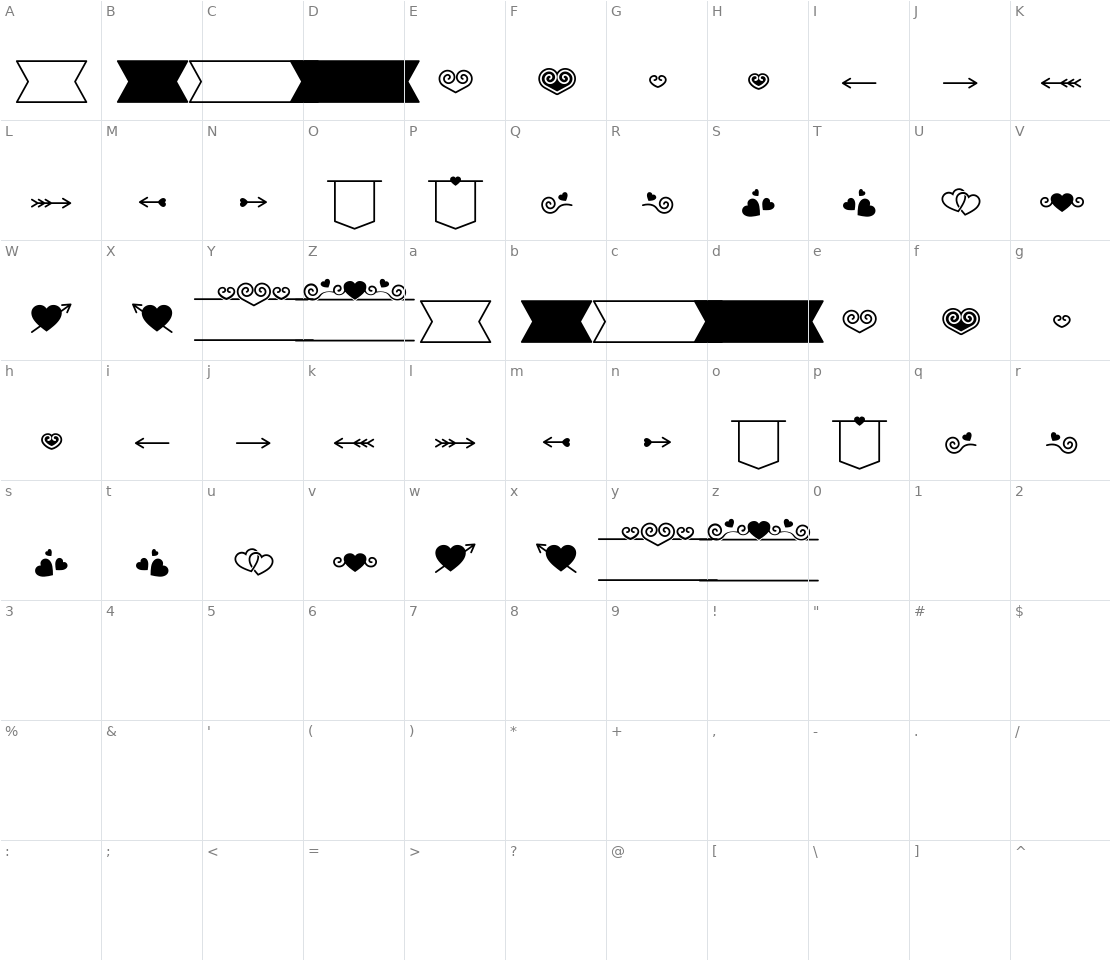
Romantine Dingbat
by Subectype
Romantine Dingbat is a set of romantic ornaments and symbols from Subectype, featuring hearts, arrows, banners, and other Valentine-themed decorative elements. It's the kind of dingbat font you reach for when putting together wedding invitations, love letters, greeting cards, or seasonal Valentine's Day designs where you need quick, ready-made romantic flourishes without sourcing separate illustrations.